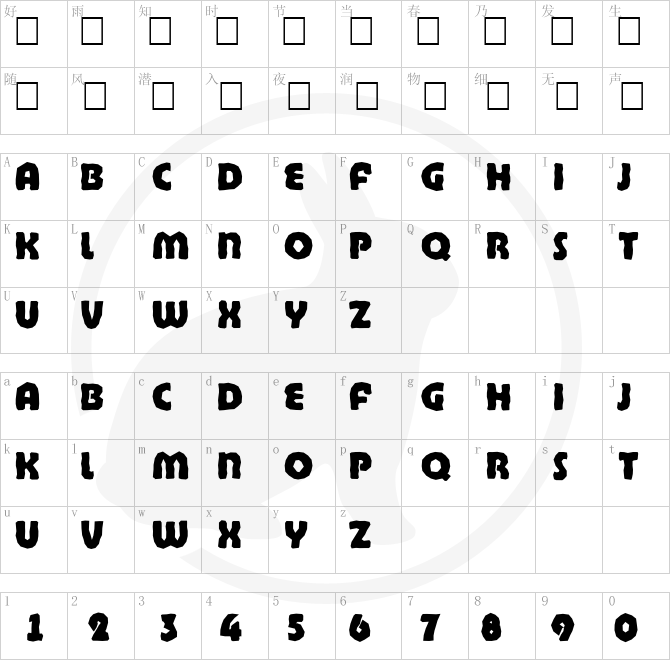
- Font Name:a_BighausTitulBrk
- Subfamily:ExtraBold
- Subfamily:a_BighausTitulBrk ExtraBold
- Full Name:a_BighausTitulBrk ExtraBold
- Weight:800
a_BighausTitulBrk-ExtraBold.ttf is a very beautiful artistic font, a_BighausTitulBrk-ExtraBold.ttf is widely used in the design and printing of various books and pictures,a_BighausTitulBrk-ExtraBold.ttf has a strong visual impact,a_BighausTitulBrk-ExtraBold.ttf is a commonly used font in newspapers, magazines and books, and is used in posters, e-commerce Poster design, store design, logo design, font design and other fields.a_BighausTitulBrk-ExtraBold.